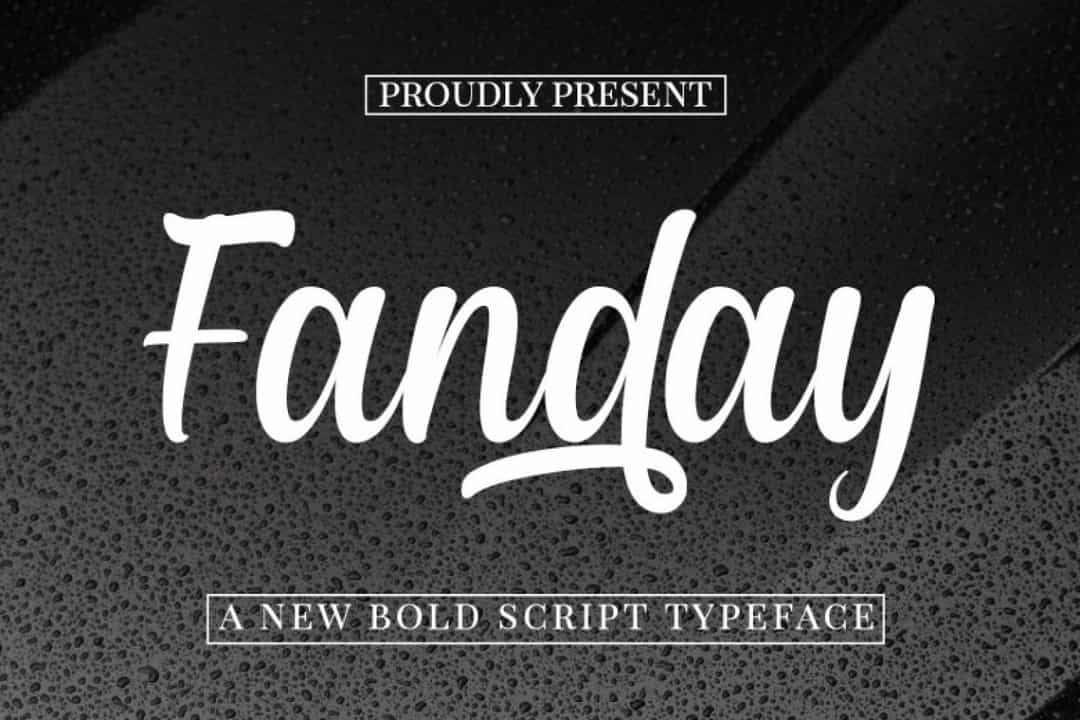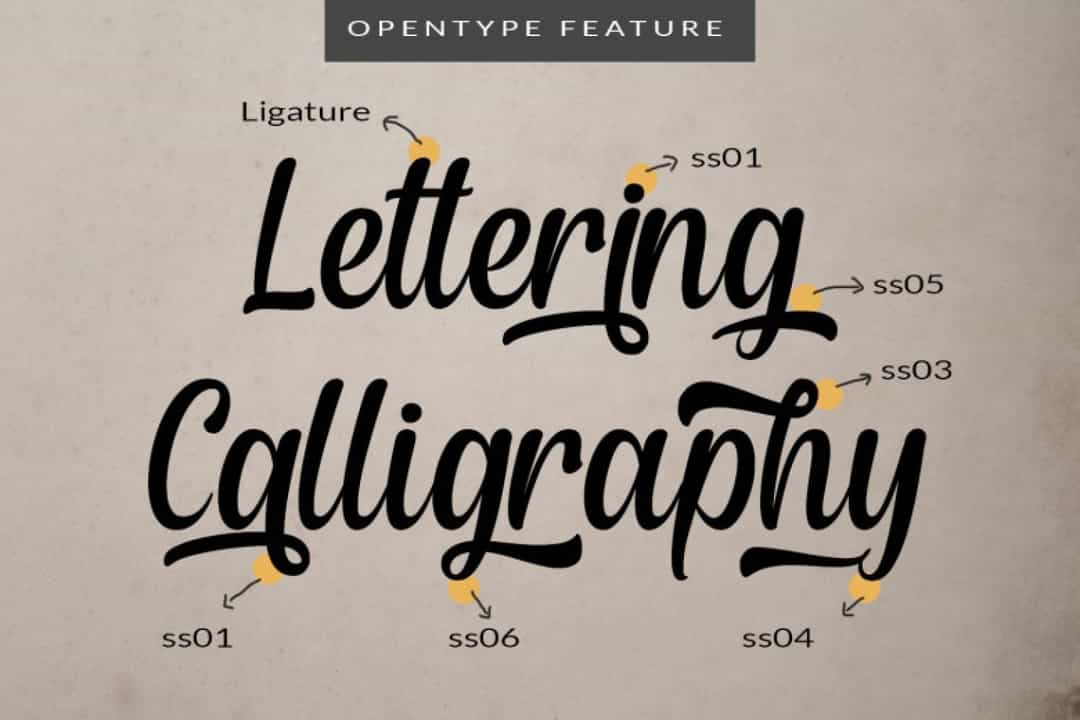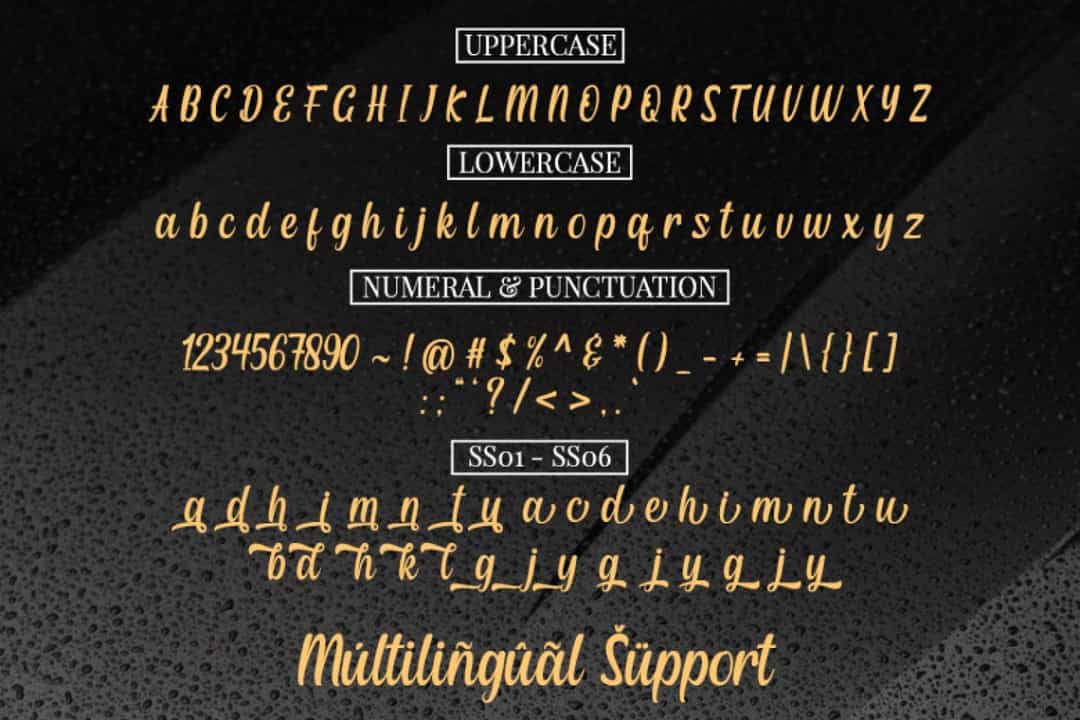
Fanday Font
Fanday is an exquisite handwritten script font created to add chic style and charm to headlines or logotypes. It reads as robust energetic confident and adds character and nostalgia to layouts. Fanday has been PUA encoded, giving you easy access to its glyphs, swashes, and symbols!